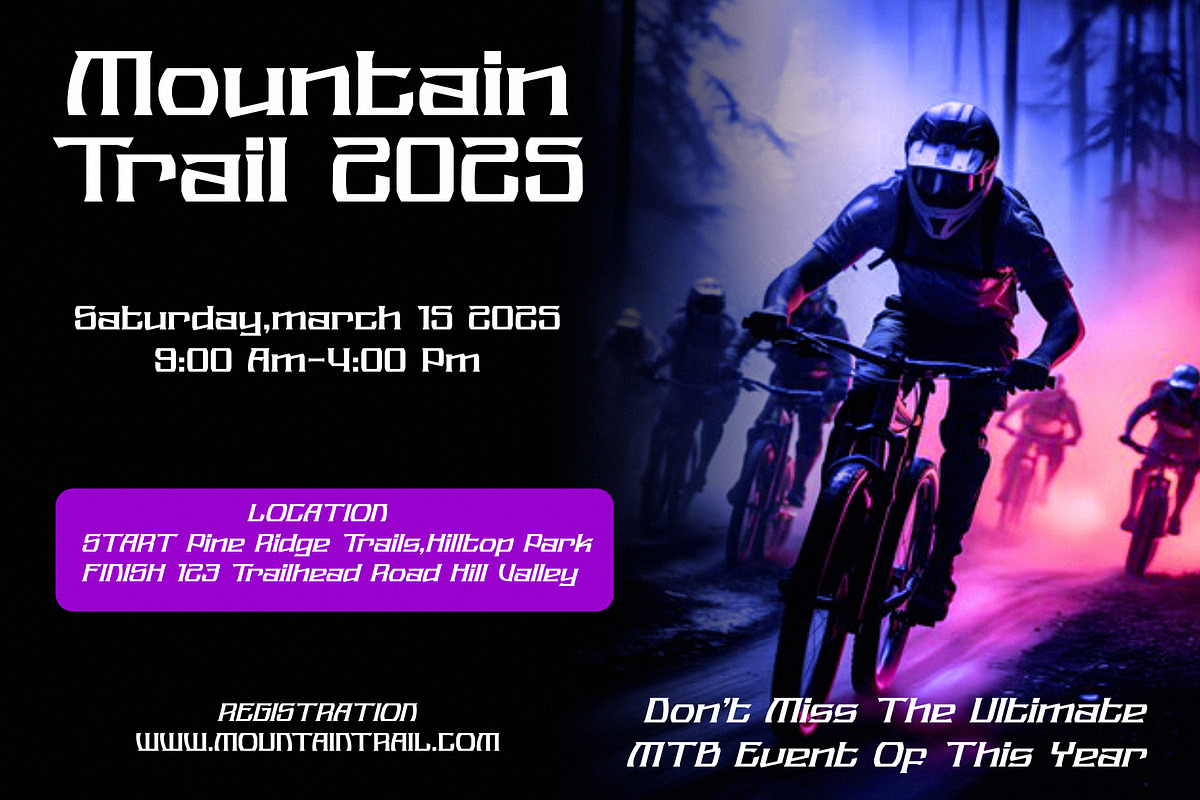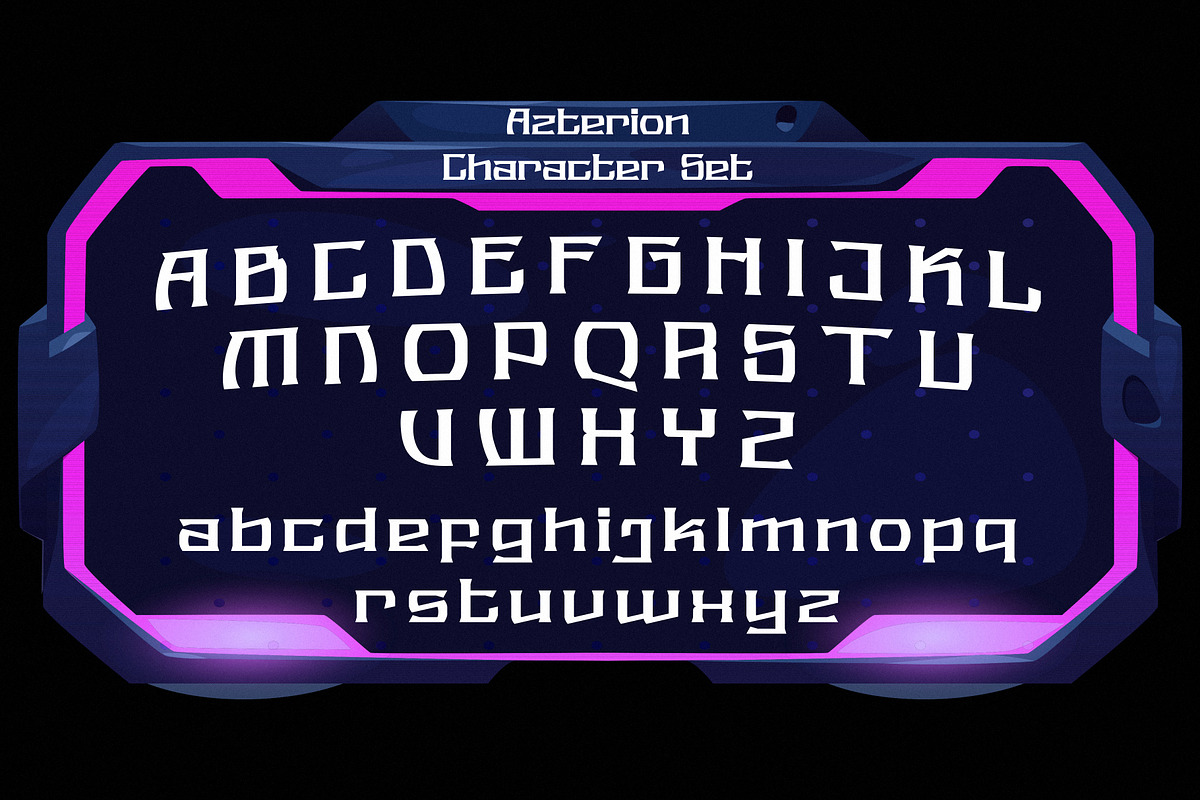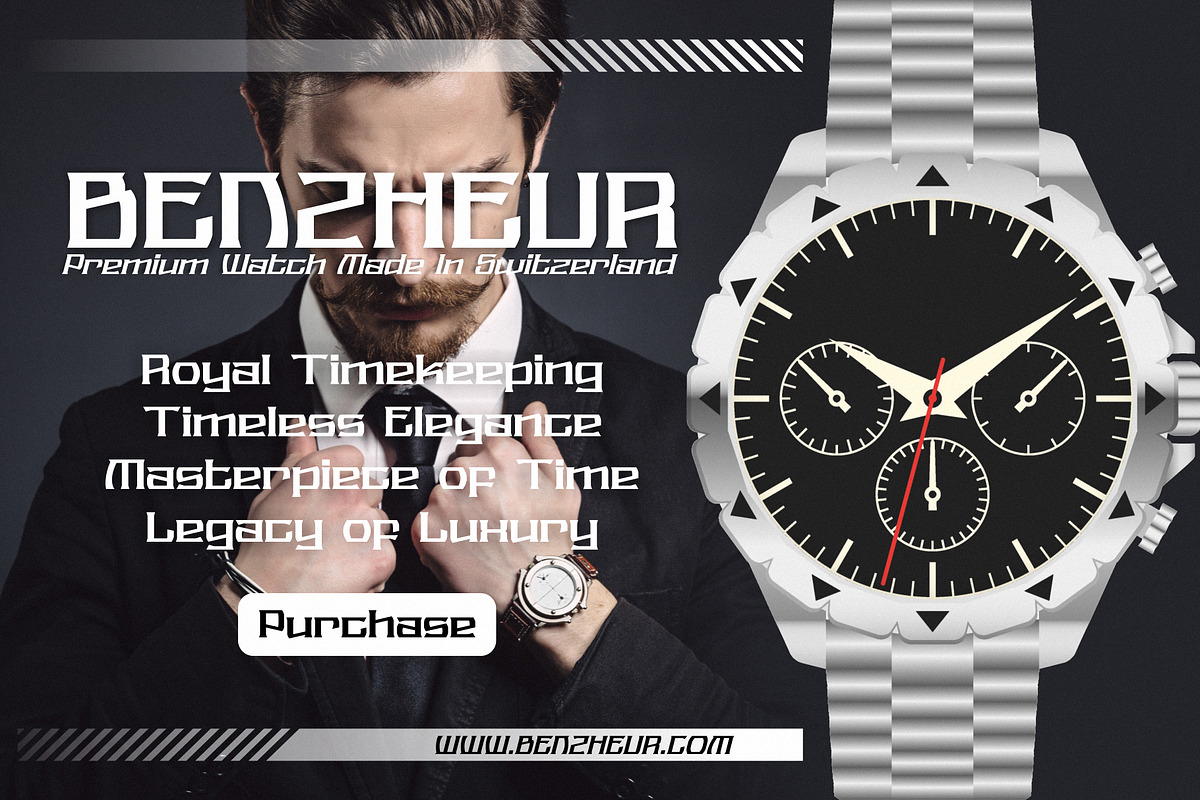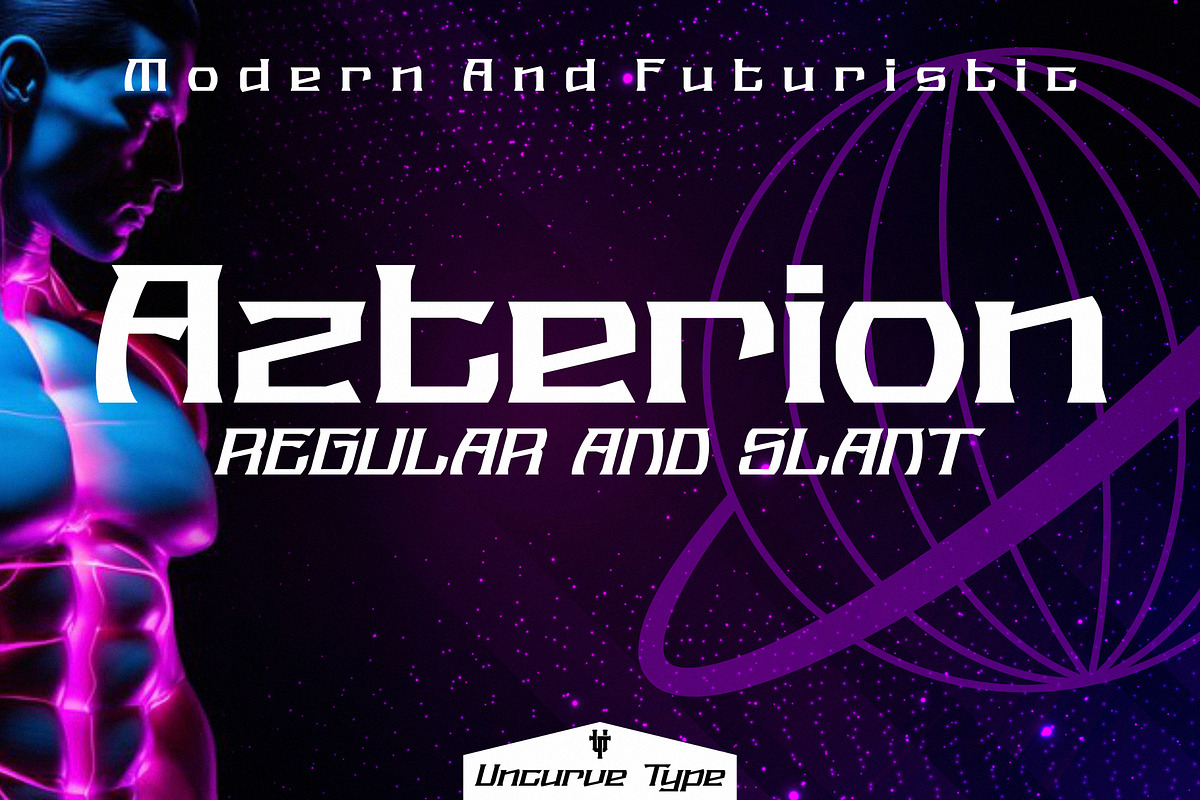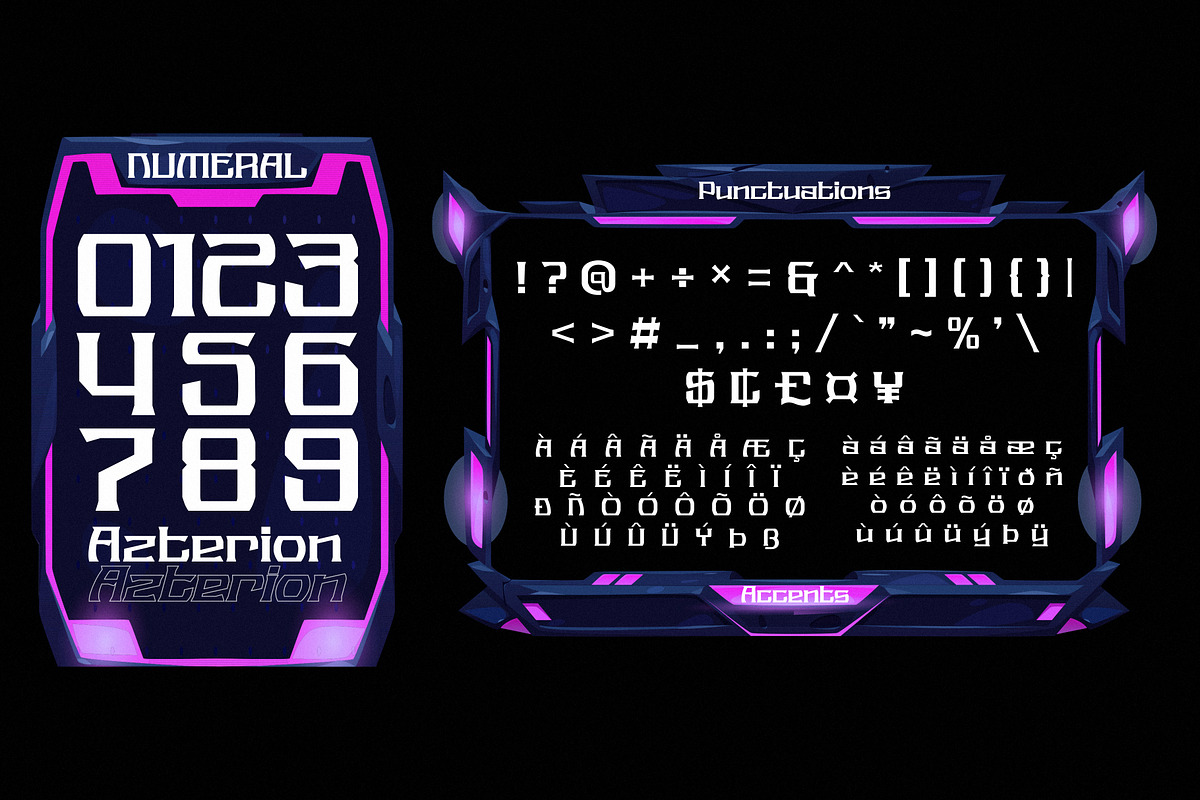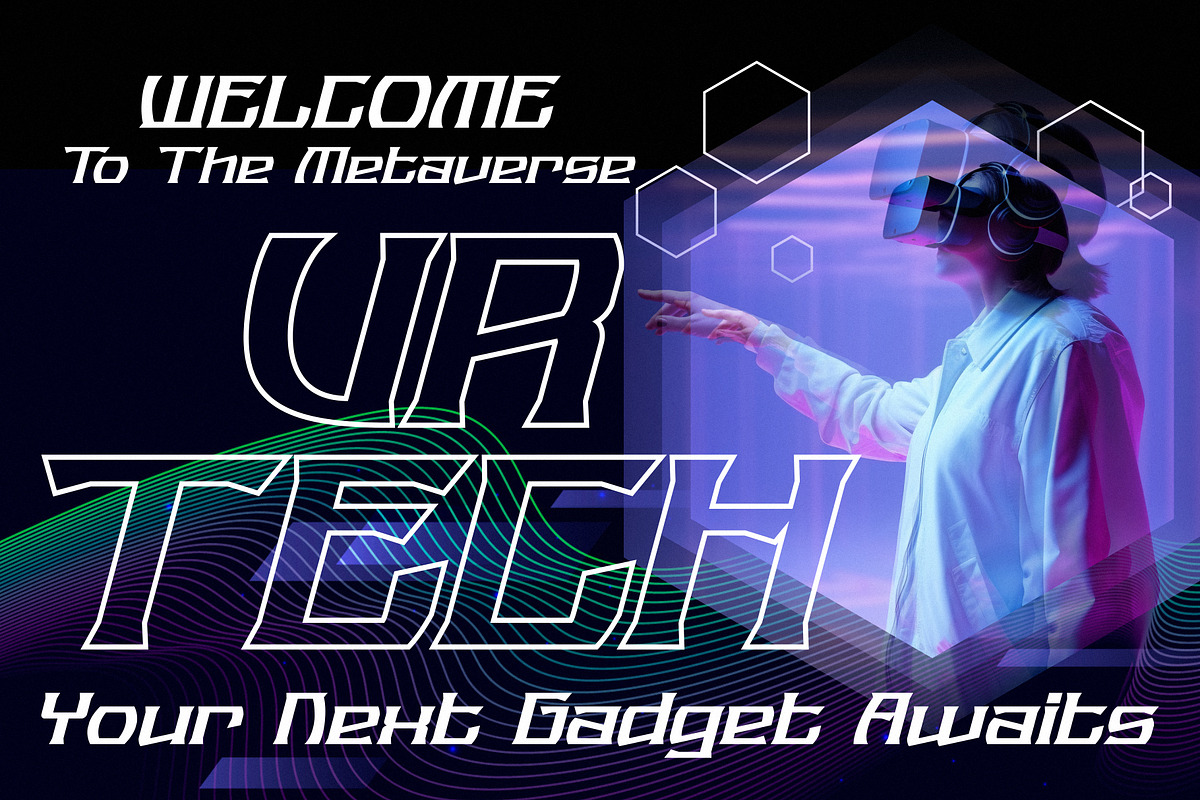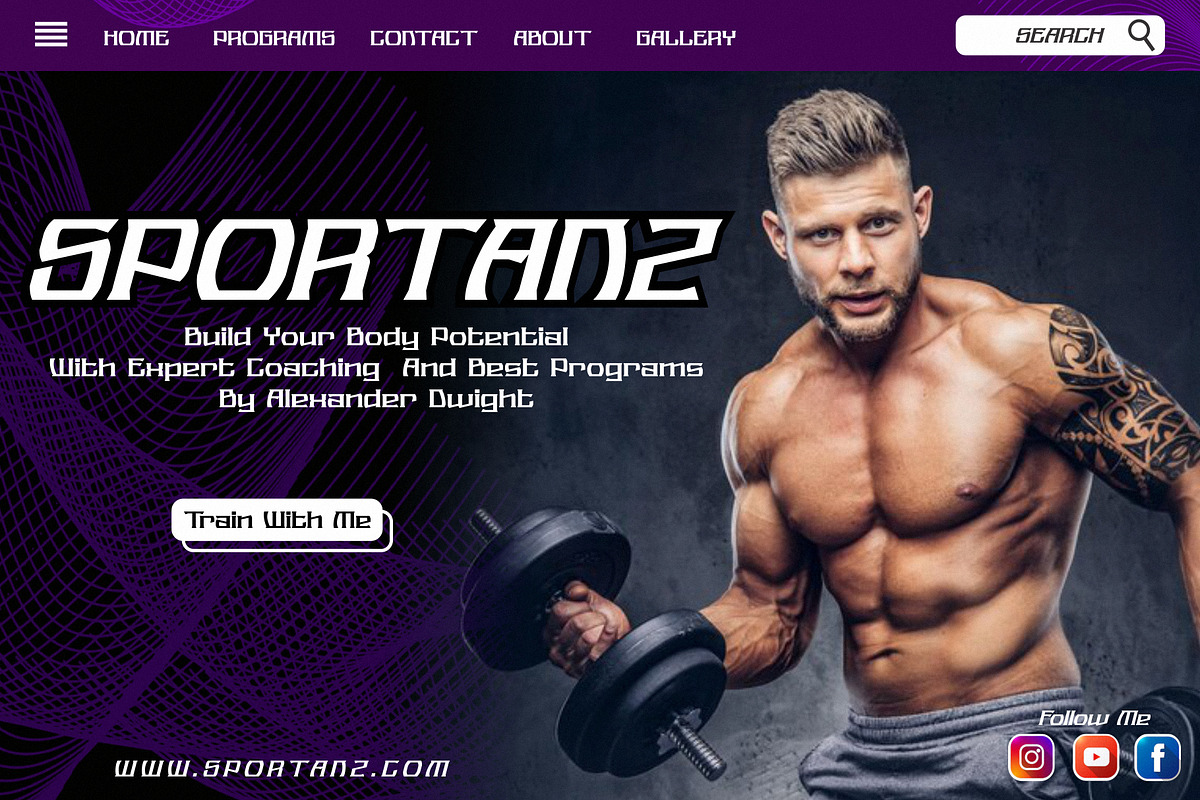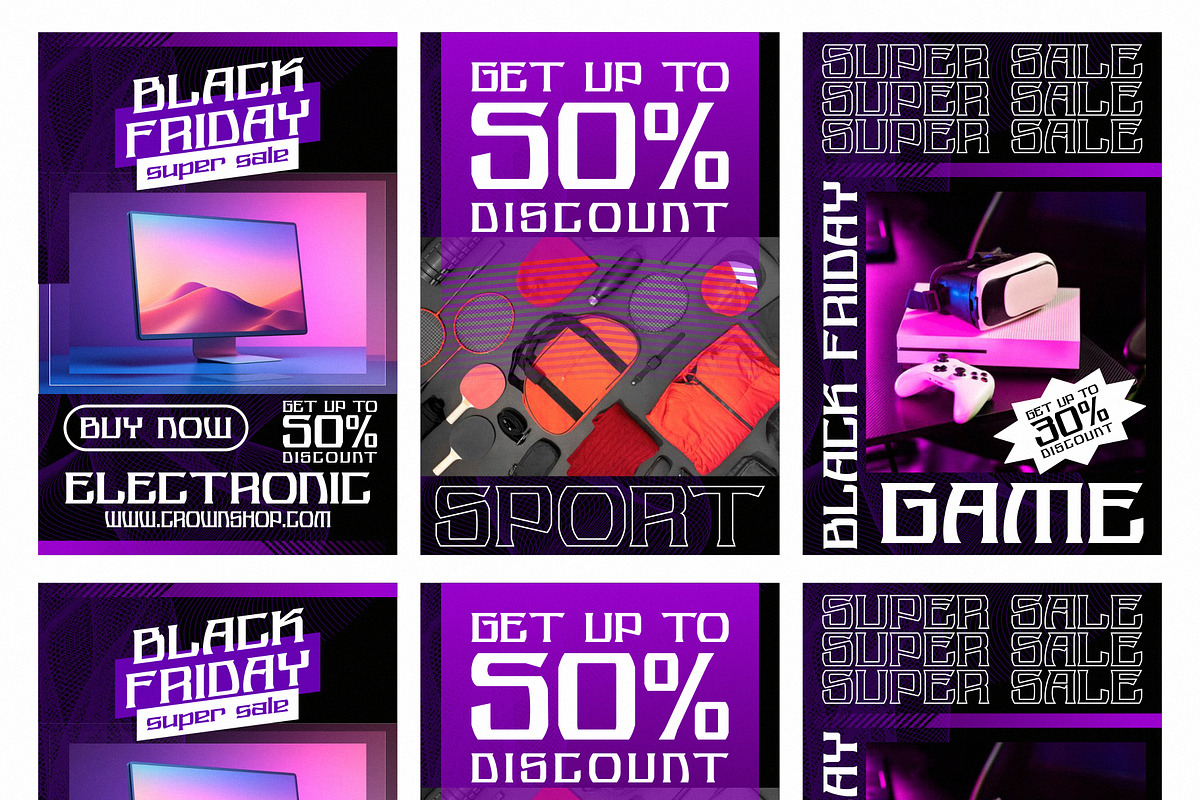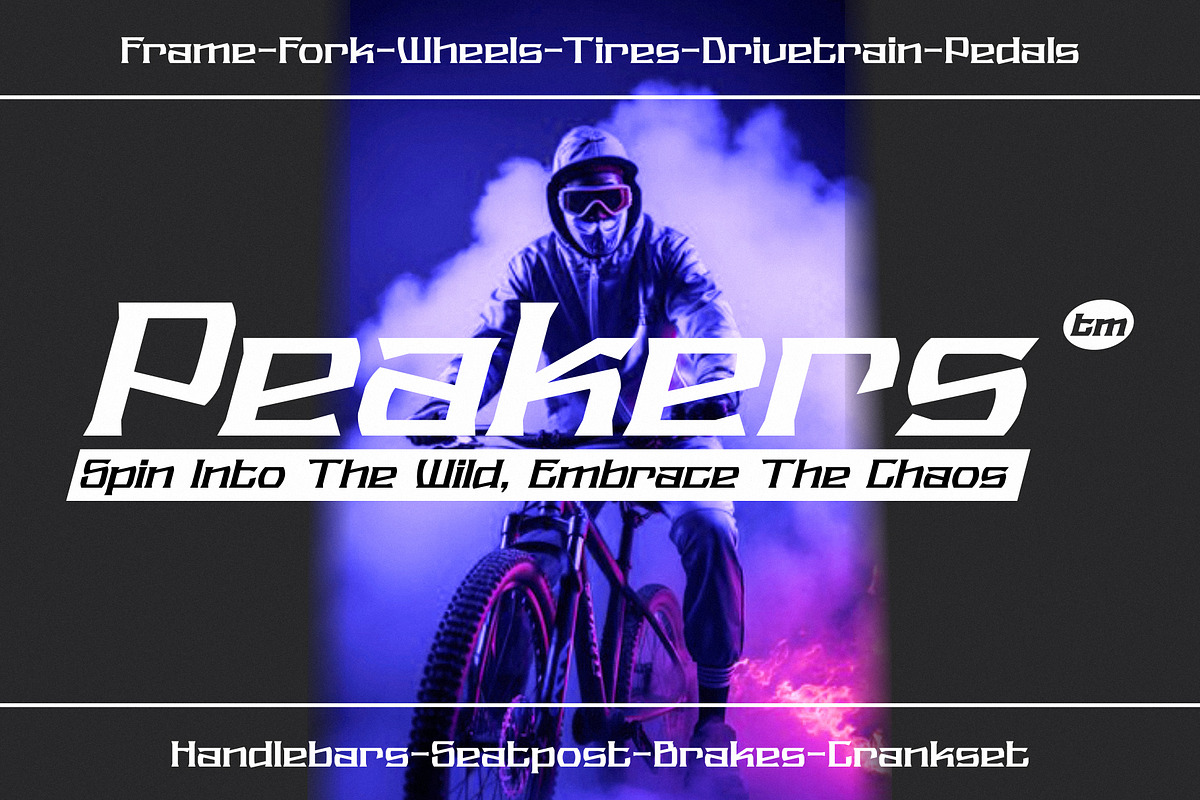
Azterion
combination perfect for creating impactful, high-energy designs. Its sharp lines and stylish form make it ideal for designs inspired by speed, technology, and the world of modern sports.
Azterion is suited for a wide range of applications, including authentic logos, sports designs, flyers, posters, branding, magazines, book covers, race posters, apparel, and titles. Its futuristic look enhances brochures, labels, product packaging, websites, social media posts, and sport event materials. With its automotive appeal, Azterion also shines in modern t-shirts, automotive branding, watches, cars, motorcycles, garage signage, and more.
Whether you're crafting bold headlines, sleek headers, or stylish formal designs, Azterion brings a cutting-edge, sporty aesthetic that elevates any design. Perfect for those looking to infuse their projects with a sense of modernity and motion, Azterion is the ultimate font for futuristic, high-impact visuals.